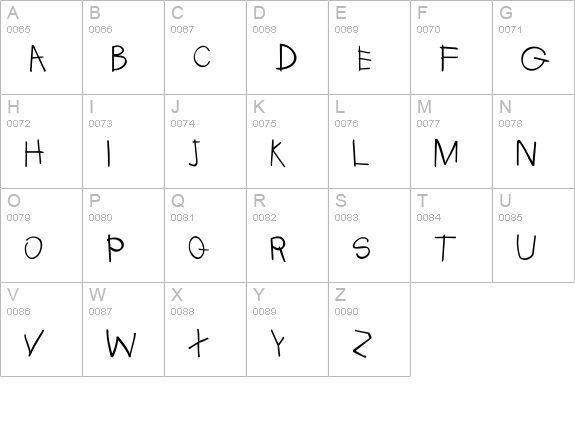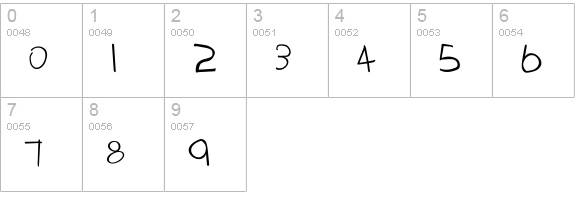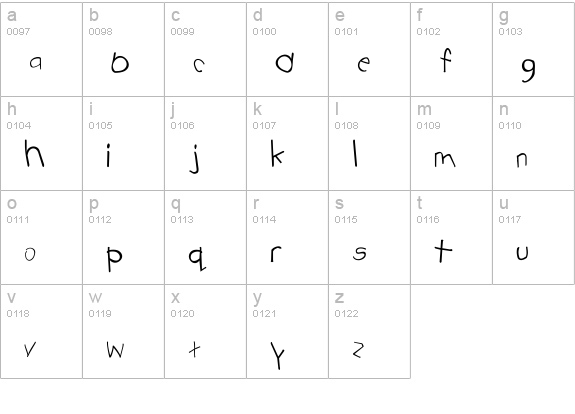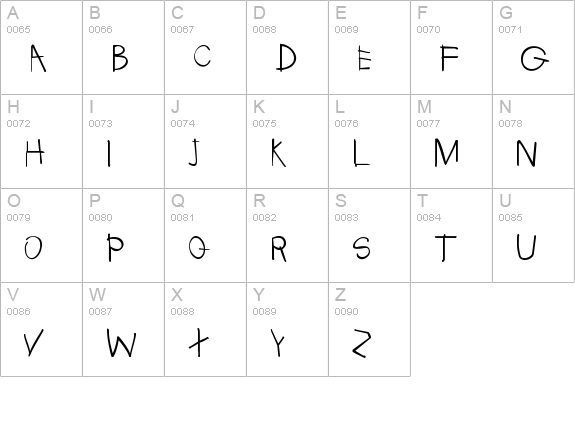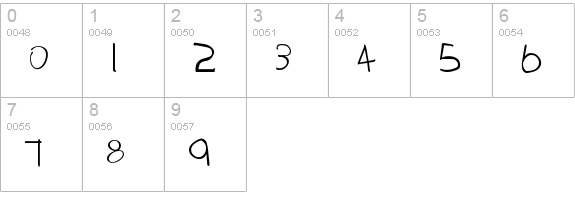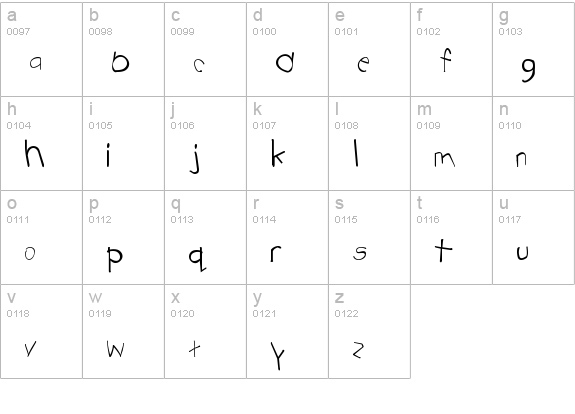
Introducing Tabatha, a stunning and versatile font that is sure to captivate and inspire. With its elegant curves and delicate strokes, Tabatha is the perfect balance between sophistication and playfulness. This font exudes a timeless charm that is guaranteed to elevate any project to new heights. Tabatha offers a wide range of uppercase and lowercase letters, as well as a variety of punctuation marks and special characters, making it a highly versatile font that can be used for everything from logos and branding to invitations and headlines. Its clean and legible design ensures maximum readability, allowing your message to shine through effortlessly. One of the most remarkable aspects of Tabatha is that it is available for free download at FontsMarket.com. Yes, you heard it right – this extraordinary font can be yours without any cost. FontsMarket.com is a trusted source for high-quality fonts, and their commitment to offering Tabatha to users for free is a testament to their dedication to providing accessible and exceptional typography. By downloading Tabatha from FontsMarket.com, you not only gain access to a remarkable font but also the opportunity to enhance your creative endeavors without any financial burden. Whether you are a professional designer or a DIY enthusiast, Tabatha will undoubtedly become an invaluable asset in your font collection. So why wait? Unlock the potential of your projects with Tabatha – the free font that combines elegance, versatility, and accessibility. Download it today at FontsMarket.com and embark on a journey of endless creativity.